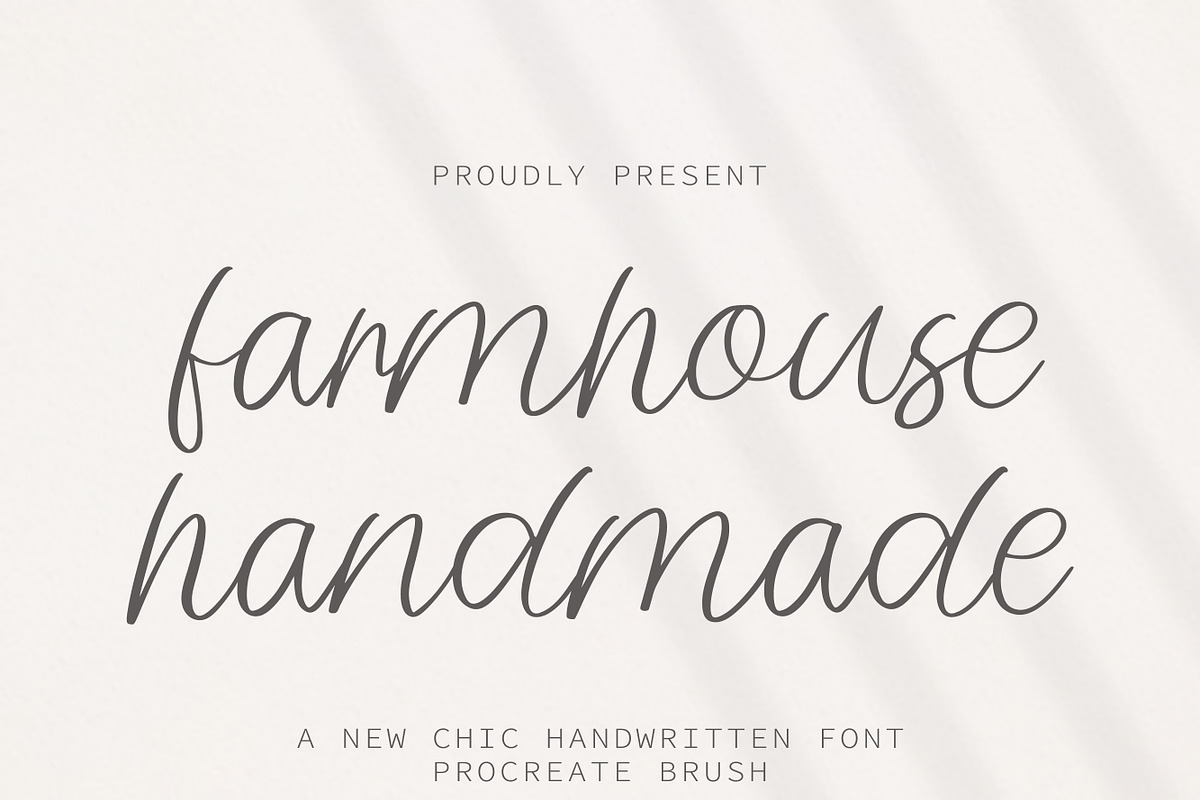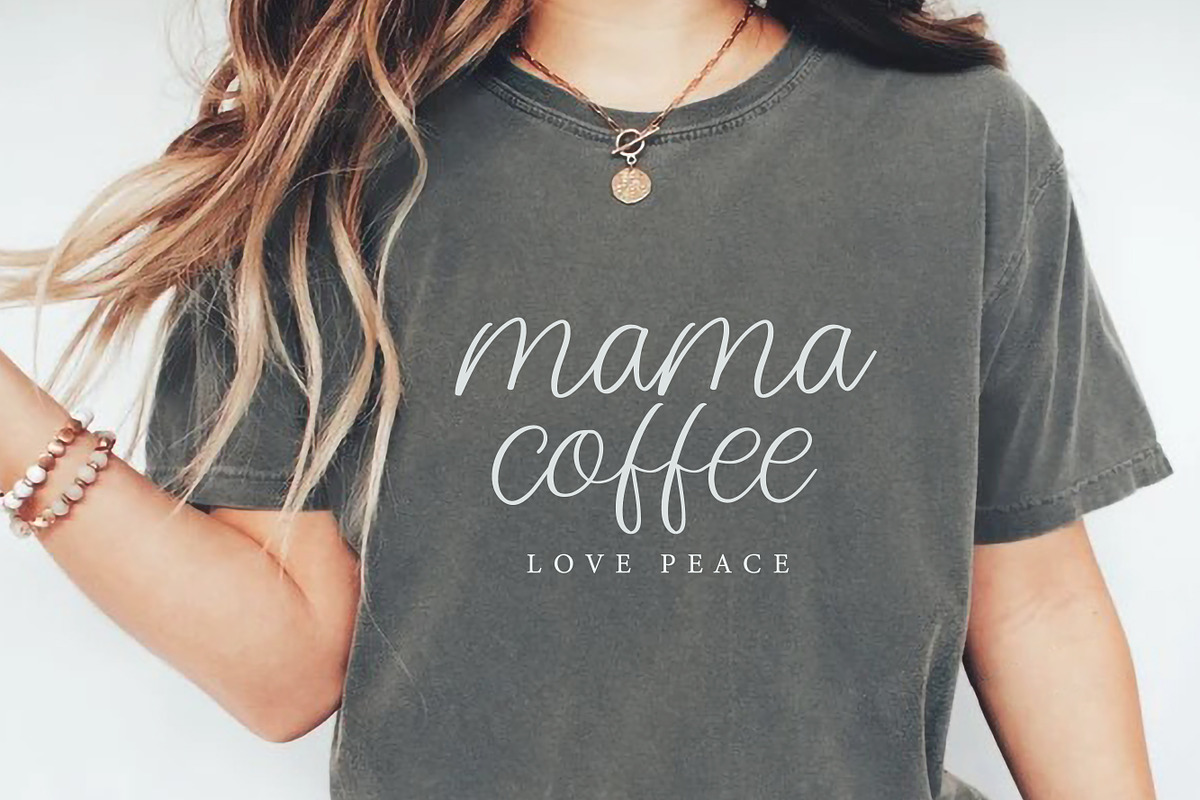
Farmhouse Handmade script font
Farmhouse Handmade is a chic, flowing script font that evokes the warmth and authenticity of genuine, quick handwriting with an airy, contemporary style.
This lovely Farmhouse Handmade typeface is absolutely perfect for crafting personalized gifts, creating cozy farmhouse decor signs, designing wedding and shower stationery, adding a charming signature to photography watermarks, and developing quaint branding for bakeries or craft businesses, infusing every piece with sincerity and down-to-earth charm.